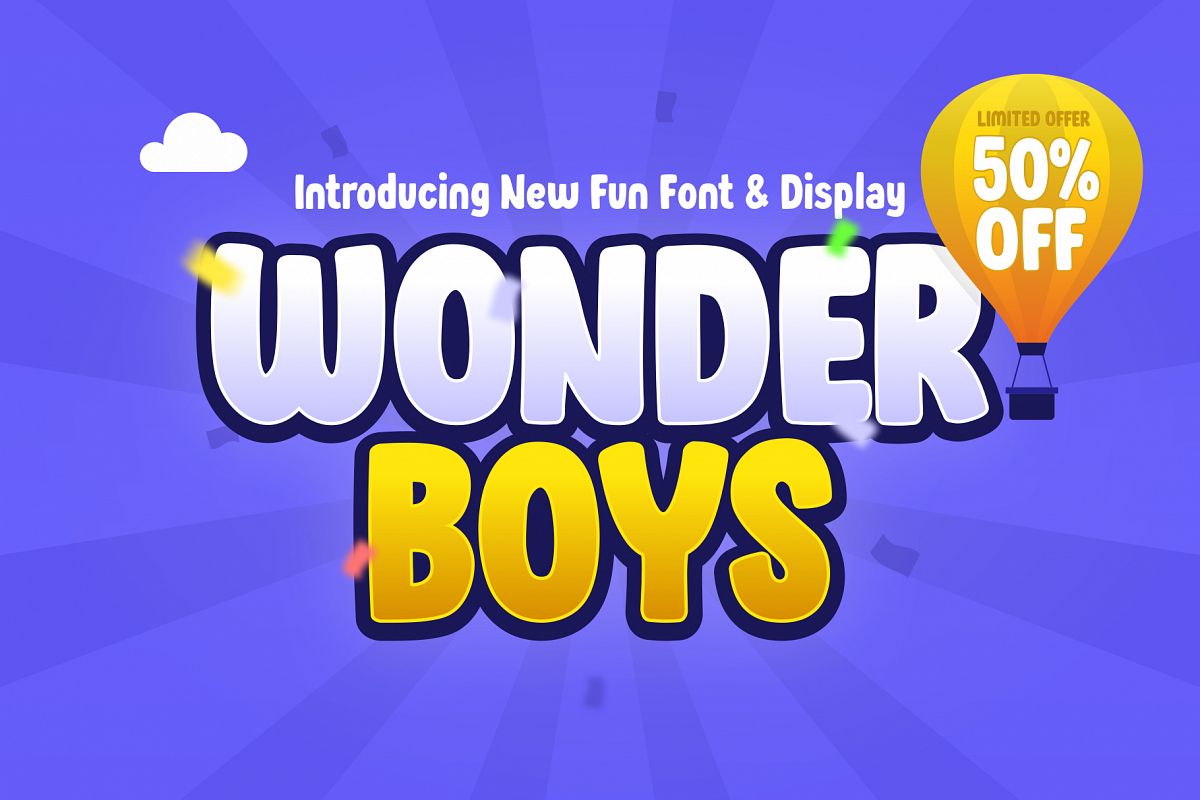
Do you want to find a good font for Display, but look fun kids? Wonder Boys is the answer.. Wonder Boys is Our first Fun Kids Font and Display, are designed for Titles, Headline, Subtitles and many more you want. It has his own unique style with rounded in each corner. Wonder Boys is an type family ideal for display, game title, text, print, branding, signage, and and also for user interfaces, mobile devices, especially web design creation, with a set of optimal characters for your design in any layout.